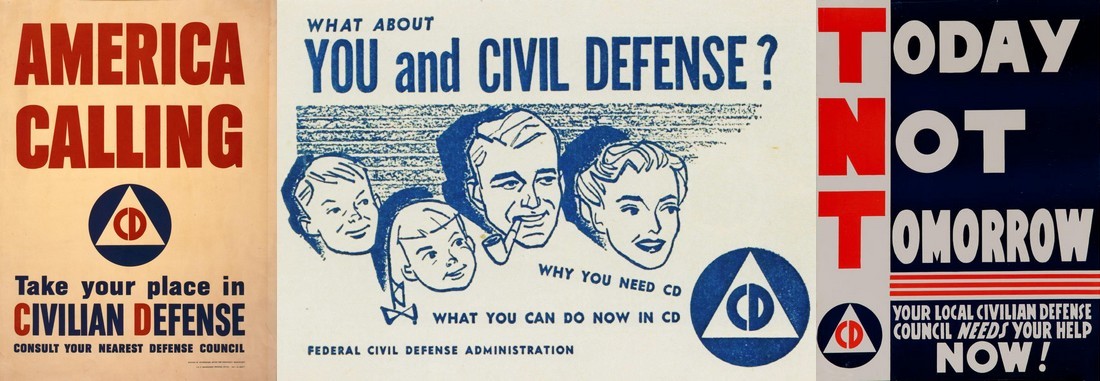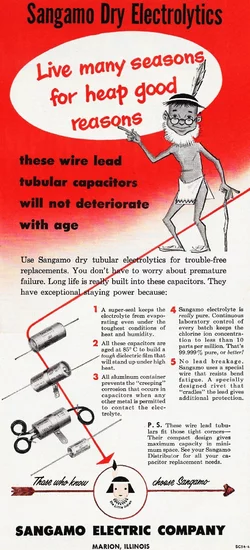
Font And Typeface Thread
FONT OR CHEESE?
1. Boudoir
2. Dirt Lover
3. Luella
4. Cacouyard
5. Dranskof
6. Timberdoodle
7. Tetilla
8. Matilde
9. Fontleroy Brown
10. Frankfurter
11. Milbenkase
12. Little Dragon
.
font, cheese, cheese, font, font, font, cheese, font
Sans serif font on legal documents is retarded and looks ugly, good job, current admin.
No fucking idea what it has to do with pushing out diversity though lmao.
Now for something less shitposty since this is a fun nerd topic.
I know
>Google
But Google Fonts is a great place to find free and open source fonts for everything that it is you need a font for. While it is an API meant to make you dependent on Google for serving fonts, it's also a very handy database of fonts with easy filters to find exactly what you're looking for.
Lato is one of the most ubiquitous fonts online designed by a Polish designer Łukasz Dziedzic. Great for soft presentation and whatnot.
IBM Plex Sans is a font designed by IBM and it IBM's very IBM-y. Corporate digital elegance, goes well with UI's.
Inter is a font designed specifically for use in UI's, meant to look good and readable at any size. Notably Blender uses it as it's default font since version 4.0.
Source Code Pro is a serif font designed by Adobe that works perfectly in monospace applications like terminal emulators and text editors.
This is a bit of an oddity but there is an entire font pack composed of old school PC bitmap fonts adapted to a modern format, including an enhanced spin on the classic Windows CMD font as well as a vectorized version of the classic IBM VGA font if you hate the classic crispy pixels and want your fonts to be smooth like butter.
Nothing beats the fonts and design from the 1950s. Not only are the fonts good, but every page is hand laid out like a piece of art, pleasant to look at, aesthetically pleasing.
There aren't even the best examples of this style, just what I could quickly find.
Just about every magazine, flyer, ad, sign from the 1950s up through the 1980s had better fonts and designs.
I love it, and miss it so much.
Graphic design is regressing because there is no longer any adherence to grid-based systems that were the basis for traditional publishing. Nu-designers just open up Photoshop or Affinity or Canva or whatever and slop together shit without care. There is no concern because it's all digital whereas in the past what you were designing for was always a physical medium.
A requirement for every graphic designer should be to look at "Grid systems in graphic design" by Josef Muller Brockmann. It's from 1981 but still as relevant as today as it was back then.
bitmap fonts. From the worlds blurriest 96 PPI "gamer" "screen" to some high quality ~300 dpi oled or eink panel, they're sharp everywhere. Scalable by a factor of two, they always line up perfectly. Vectorization of fonts was a mistake and is only remotely tolerable if you have a screen with over 210 PPI, otherwise it's just an insult to the eyes.